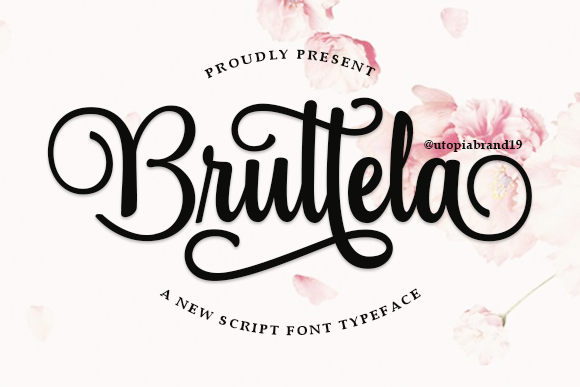
The Bruttela Font: A Delicate and Classic Handwritten Gem
This incredibly delicate and classic handwritten font has become a true favorite of mine, and I’m excited to share its beauty with you. Masterfully designed to bring each of your creative ideas to the highest level, Bruttela is a versatile font that’s perfect for designers, crafters, and creative hobbyists alike.
- ✨ Elegant and Refined: Bruttela’s delicate strokes and classic letterforms make it perfect for projects that require a touch of sophistication.
- 💫 Highly Versatile: Whether you’re working on a wedding invitation, a brand identity, or a craft project, Bruttela adapts seamlessly to any design style.
While Bruttela is an amazing font, there are a few things to keep in mind: ⚠️ It may not be the best choice for body text, as its delicate nature can make it difficult to read in large blocks. 🤔 Additionally, some users may find that the font’s elegance can be overwhelming for very casual or playful projects.
The Story Behind Bruttela: A Designer Inspiration
Bruttela was designed with the intention of creating a font that would evoke the elegance and sophistication of traditional calligraphy. The designer aimed to craft a font that would be both beautiful and versatile, suitable for a wide range of creative projects. While the exact story behind Bruttela’s creation may be unknown, its stunning design and attention to detail make it clear that it was crafted with love and care.
| Is Bruttela suitable for body text? | While Bruttela is beautiful, its delicate nature makes it more suitable for headings or titles rather than large blocks of body text. |